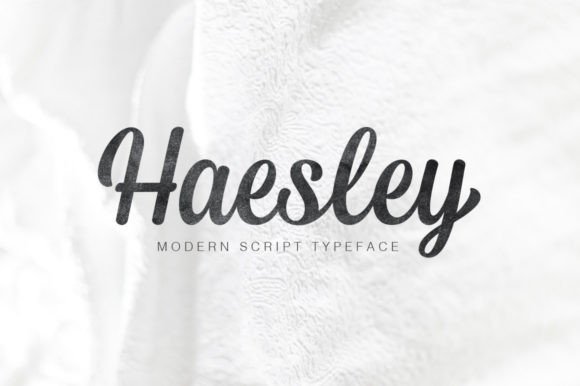
Unleash the Allure of Haesley Font: A Stroke of Sophistication for Your Designs
In a world saturated with digital monotony, where words often fail to capture the essence of your message, Haesley Font emerges as a beacon of individuality, a mesmerizing script font that breathes life into your creative expressions. Its elegant curves and stylish flourishes dance across the page, captivating the eyes and igniting the imagination.
With Haesley Font, your designs transcend the ordinary, becoming exquisite works of art that resonate with a timeless allure. Its meticulously crafted characters, reminiscent of a calligrapher's masterful strokes, lend an air of sophistication to invitations, greeting cards, logos, and every other design that yearns for a touch of elegance.
Haesley Font possesses an undeniable charm, a magnetic pull that draws viewers in and leaves them spellbound. Its versatility knows no bounds, seamlessly adapting to a symphony of styles, from the classic and traditional to the contemporary and cutting-edge. Whether you seek to create timeless wedding invitations, heartfelt thank-you cards, or eye-catching logos, Haesley Font stands ready to elevate your vision.
With its PUA encoding, Haesley Font opens up a world of possibilities, granting you effortless access to a treasure trove of glyphs and swashes. Unleash your creativity and explore the endless combinations, crafting designs that shimmer with originality and leave a lasting impression.
Discover the Enchanting World of Haesley Font:
• A captivating script font that captivates and inspires.
• A symphony of elegant curves and stylish flourishes.
• A perfect choice for wedding invitations, thank-you cards, and logos.
• Its versatility knows no bounds, adapting to a myriad of styles.
• Effortless access to glyphs and swashes with PUA encoding.
With Haesley Font, your designs will transcend the ordinary, leaving an indelible mark on the hearts and minds of those who encounter them. Embrace the beauty of handwritten artistry and unlock the full potential of your creativity. Let Haesley Font be your guiding light, illuminating your designs with its timeless elegance and boundless charm.